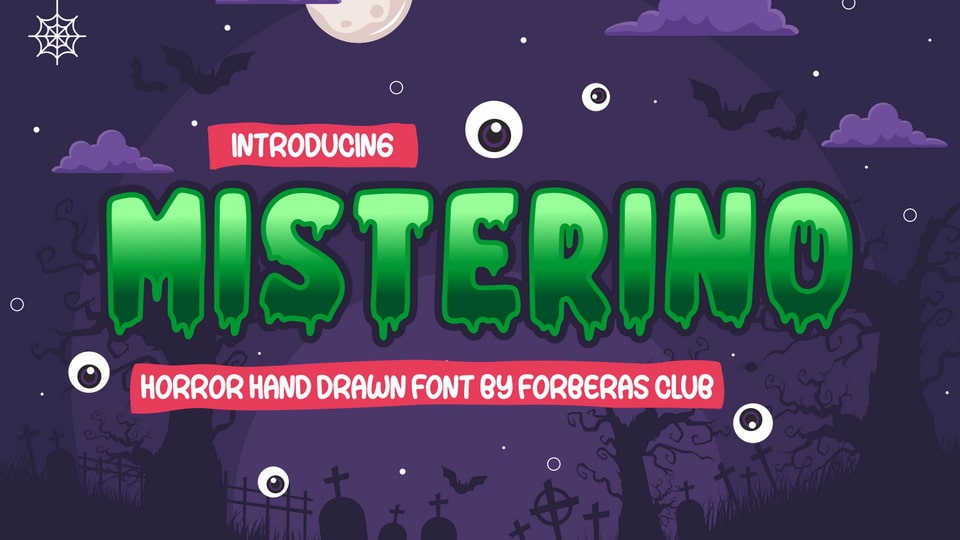
Feb 3, 2025DisplayMisterino Font Misterino is a cool and spooky display font. Whether you use it for cartoon related designs, children games or just any creation that requires a lovely touch, this font will be an amazing choice. Font DetailsDesigned by: Forberas Type FoundryWebsiteLicense: Free for personal use Download Misterino FontFile size: 17.74 KBCreated: February 16, 2025Updated: February 16, 2025 Download Explore similar fonts Zombie House Font Monsterkins Font Freaky Ghost Font Nyakare Font Please Scared Font Hueso Bone Font Family # Cartoon# Creepy# Funny# Halloween# Playful# Spooky More fonts by Forberas Type FoundryGrey Shadow FontCan’t Write FontMaqueen FontCraft Candy FontQueen Sipur FontQiyu FontMadine Style FontLetudown Font